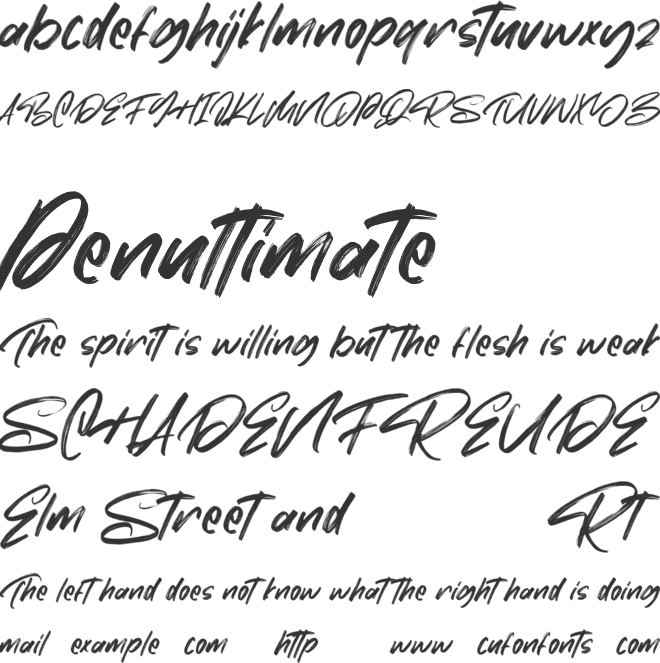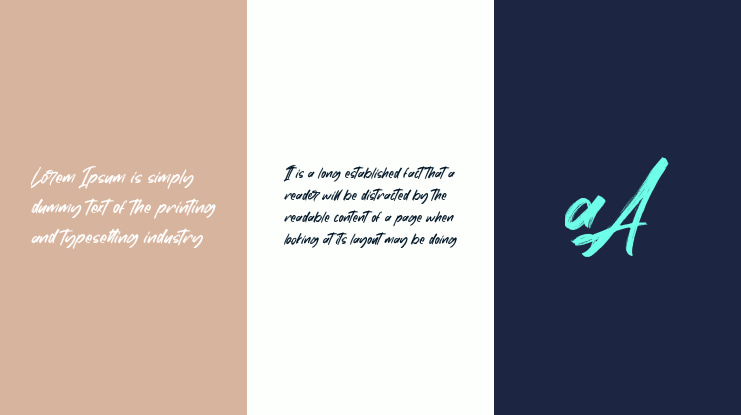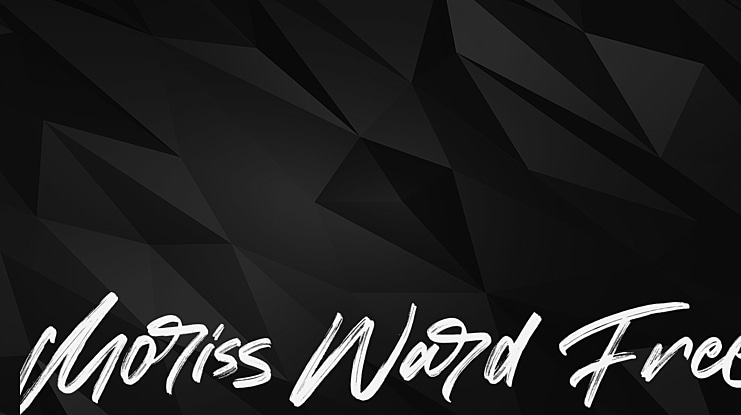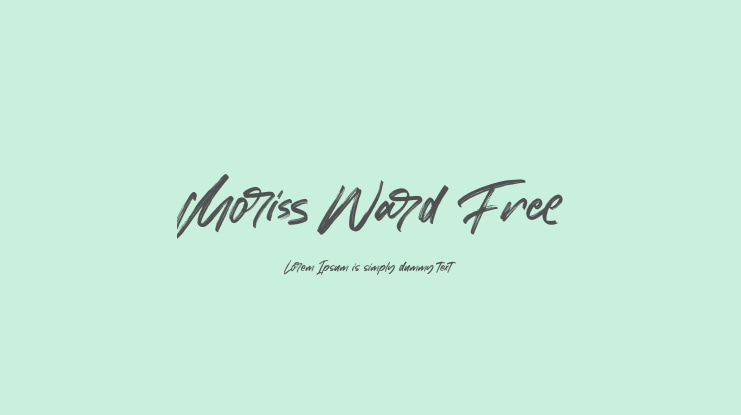
Moriss Ward Free Font
Give your designs an authentic brush handcrafted feel. "Moriss Ward" is perfectly suited to signature, stationery, logo, typography quotes, magazine or book cover, website header, flyer, clothing, branding, packaging design and more.